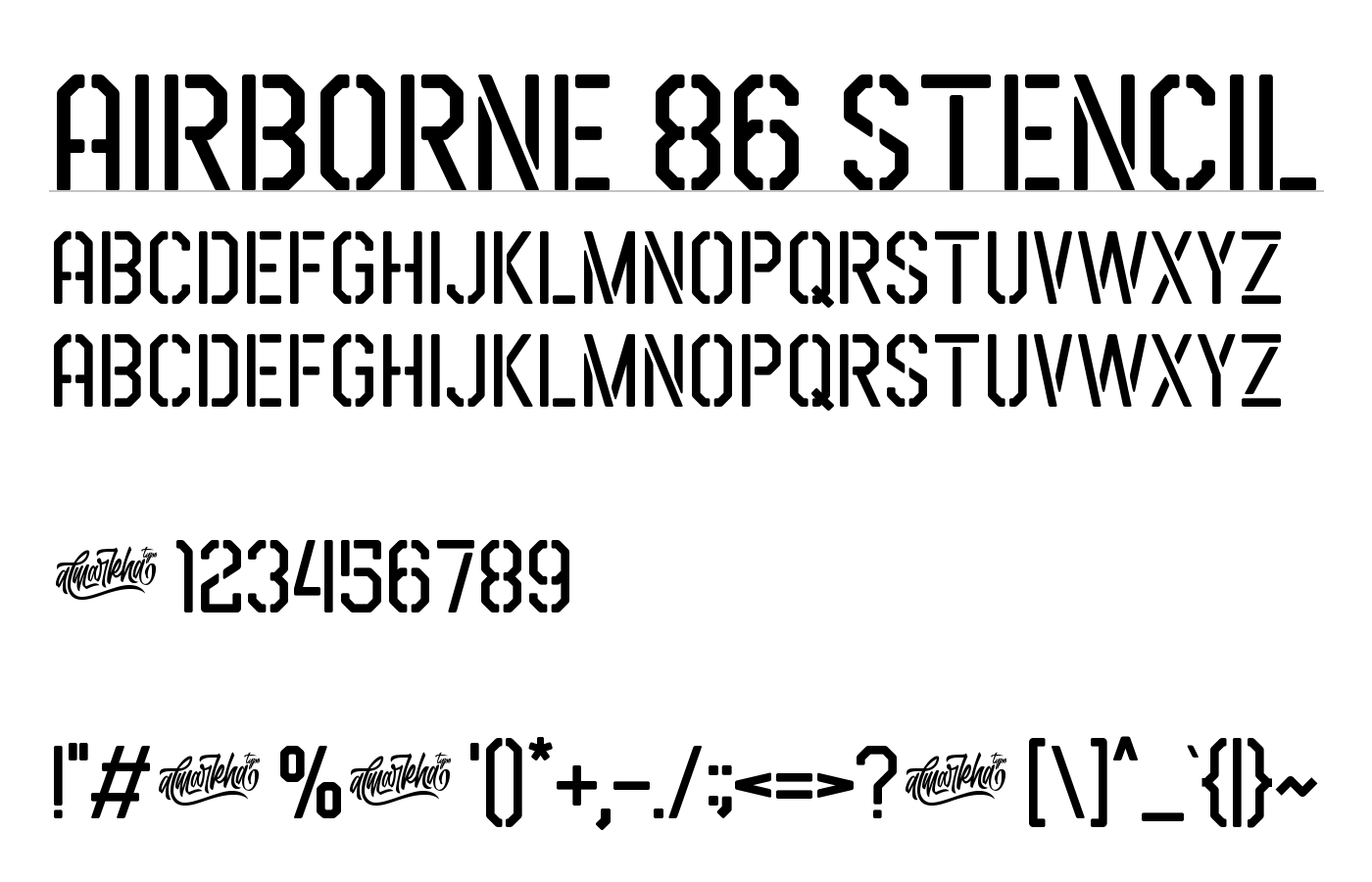
Airborne 86 is a bold, condensed stencil sans serif font with a strong industrial and military-inspired feel. Its clean, geometric shapes and high stroke contrast make it perfect for impactful headlines, logos, and signage where a rugged yet modern look is desired. This font works especially well in designs that need a precise, utilitarian style while maintaining clear readability and visual strength.
Airborne 86 Font
About Airborne 86 Font
| Designer | Almarkhatype 2020 |